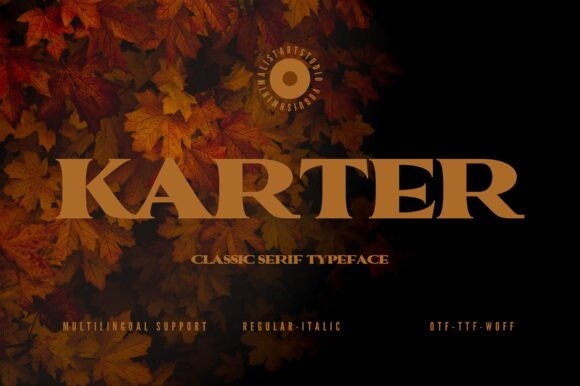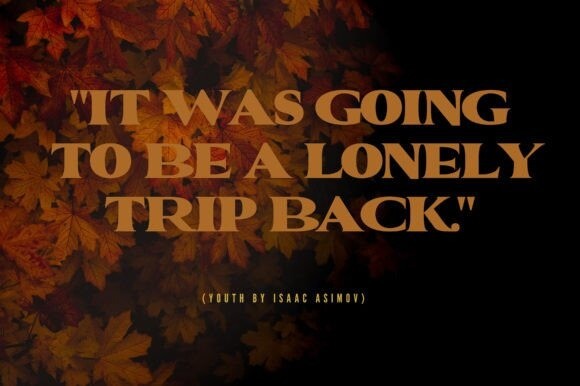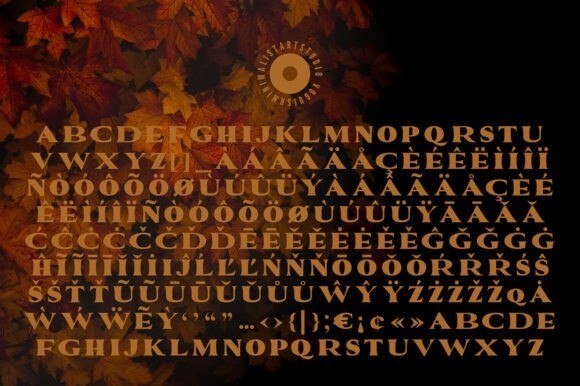
Karter Font
Karter is a classic, chic, and stylish serif typeface. It perfectly suits elegant design projects such as packaging design, cosmetics design, perfume, fashion, jewels, posters, and many more. Use it in your creative idea, and you will notice how it saves you it become one of your favourite type choice